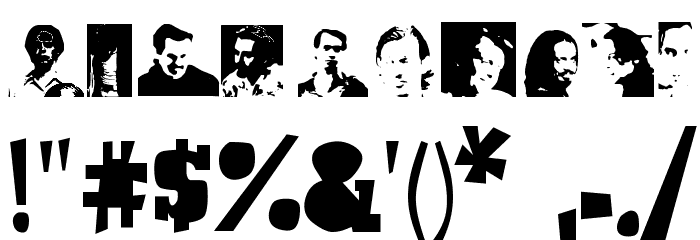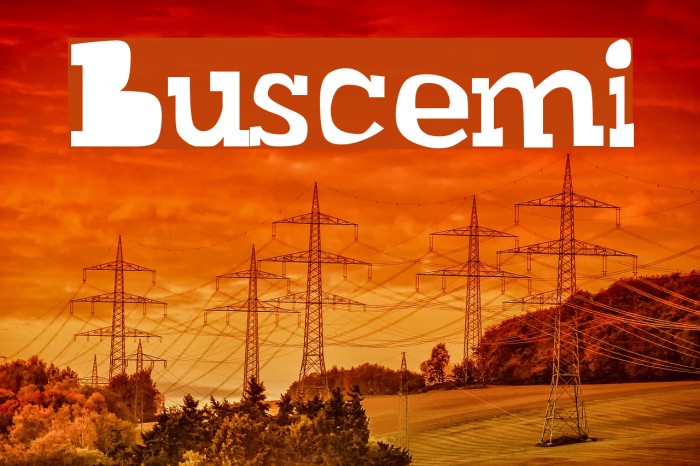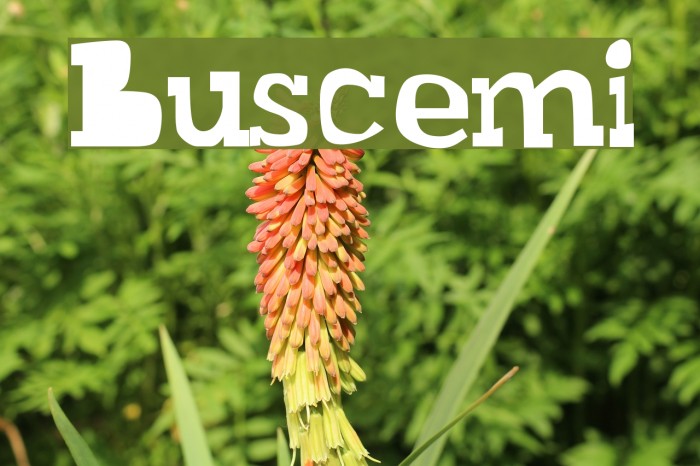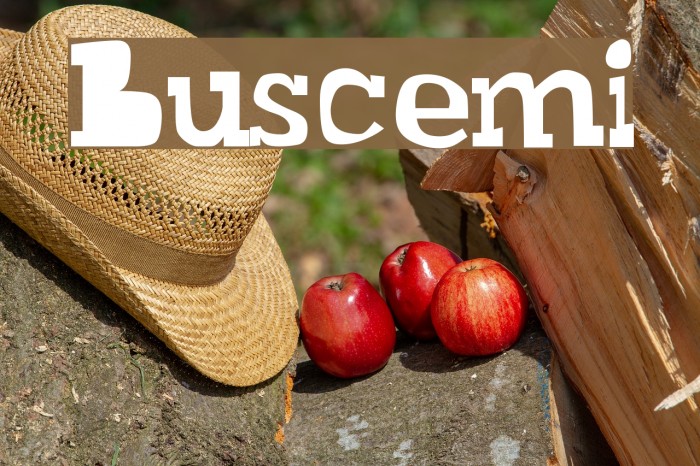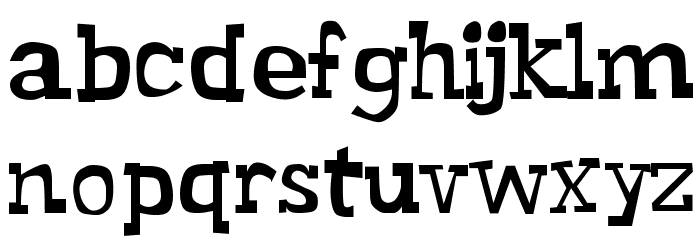
Buscemi Font
Buscemi Description
This font exhibits a bold and eclectic style, characterized by its unique and playful letterforms. The uppercase letters are particularly striking, with exaggerated serifs and varying stroke widths that create a dynamic and eye-catching appearance. The lowercase letters maintain a more consistent stroke width, providing a balance to the overall design. The font includes a full set of numerals and a variety of special characters, making it versatile for different design needs. Its distinctive style is reminiscent of vintage poster typography, yet it maintains a modern edge through its boldness and creativity.
A bold, eclectic font with playful letterforms and exaggerated serifs from Quirky fonts.
- Proposed Projects: Ideal for use in posters, album covers, branding projects, and any design that requires a bold, vintage-inspired aesthetic.
- Overall Style: Vintage